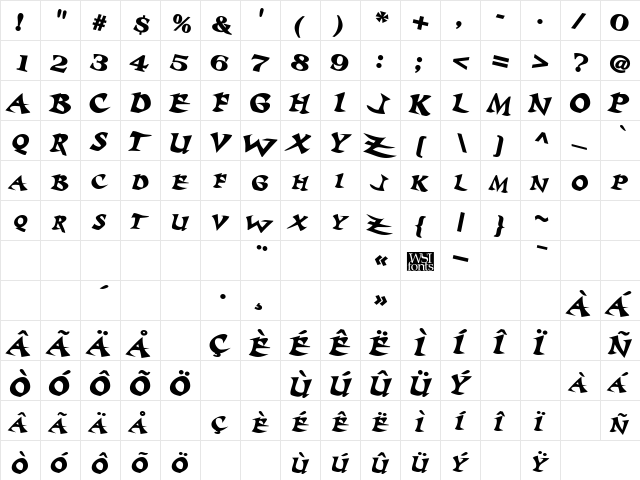
Baratz Bold Italic
Design Context for Baratz Typeface
Baratz is a composed and adaptable typeface that performs quietly and consistently across a wide range of design contexts. Its italic angle brings a sense of urgency and motion to the letterforms. Its bold stroke weight gives it real presence on the page.